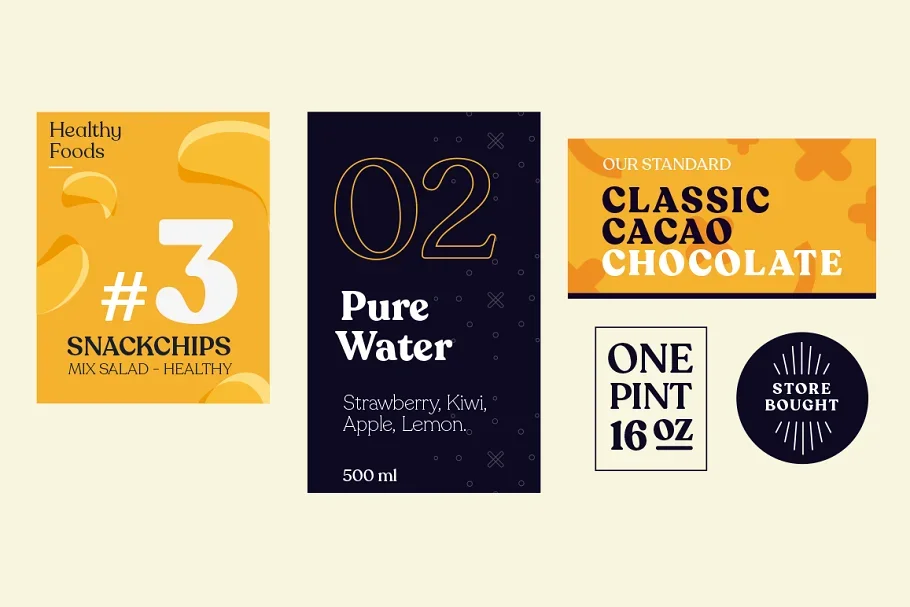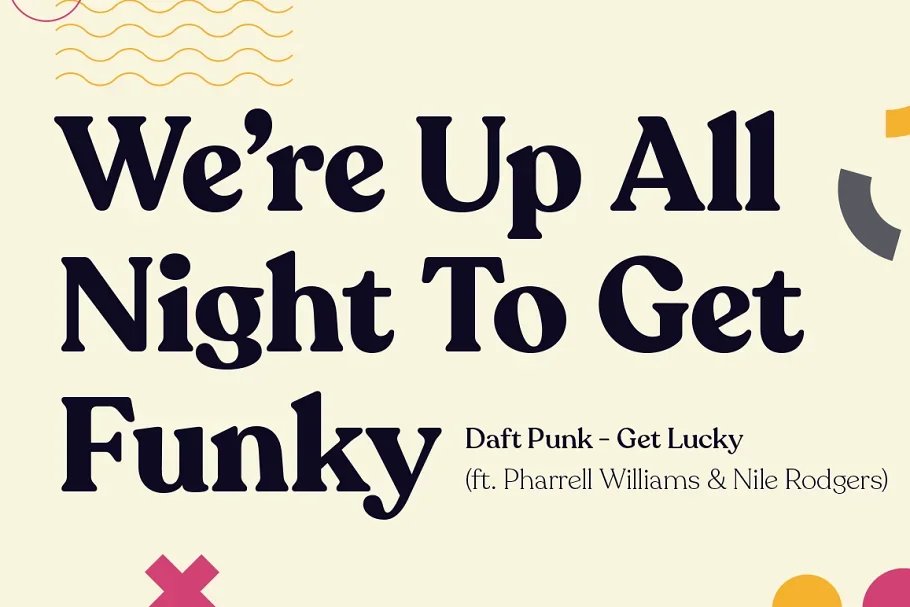
Recoleta Font is where vintage meets modern. It brings together the softness of 1970s serif styles with a clean, contemporary finish. Its rounded edges, thick strokes, and warm tone make it a go-to for branding, editorial design, and standout headlines. If your project needs a touch of nostalgia with a polished twist, Recoleta fits the bill perfectly.
- Designer: Jorge Cisterna (Latinotype)
- Released: Originally in 2018; demo version published online in 2020
- Style: Serif, with a retro-modern aesthetic
What makes Recoleta stand out:
- High contrast between thick and thin strokes
- Rounded letterforms with soft terminals
- Elegant curves that bring personality and warmth
- Available in multiple weights, perfect for flexible design use
- Great readability in large display settings
Recoleta shines in big, expressive applications, think magazine covers, fashion branding, or packaging with personality. It pairs beautifully with minimalist sans-serifs like Futura, Lato, or Avenir, which help balance out its retro flair. Using a clean companion font ensures Recoleta remains the center of attention while maintaining readability across your layout.